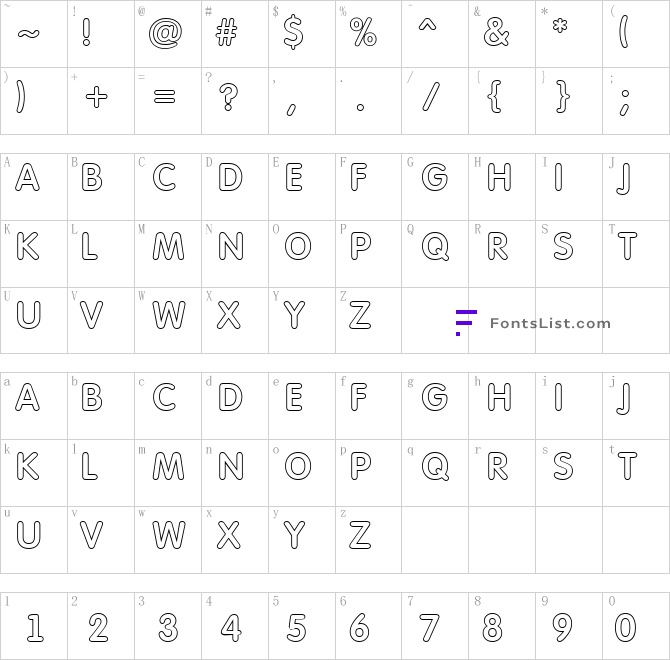
- Font Name:a_FuturaRoundTitulOtl
a_FuturaRoundTitulOtl.ttf is a very beautiful artistic font, a_FuturaRoundTitulOtl.ttf is widely used in the design and printing of various books and pictures,a_FuturaRoundTitulOtl.ttf has a strong visual impact,a_FuturaRoundTitulOtl.ttf is a commonly used font in newspapers, magazines and books, and is used in posters, e-commerce Poster design, store design, logo design, font design and other fields.a_FuturaRoundTitulOtl.